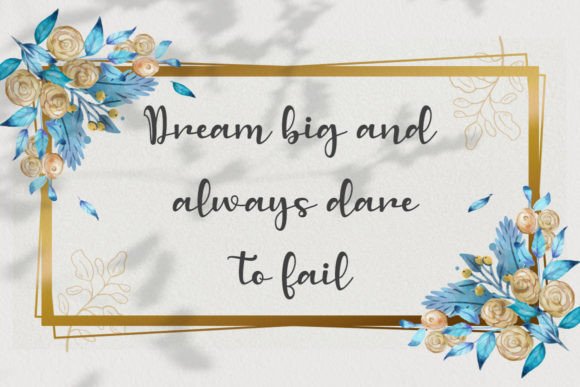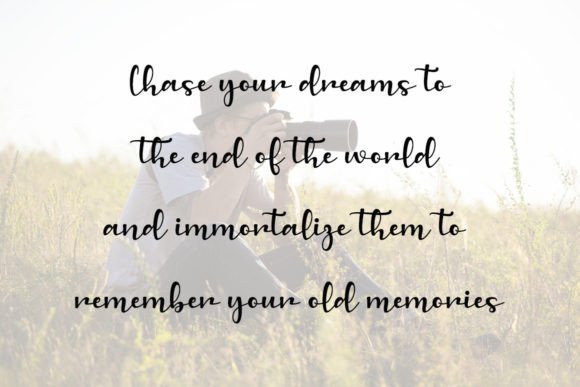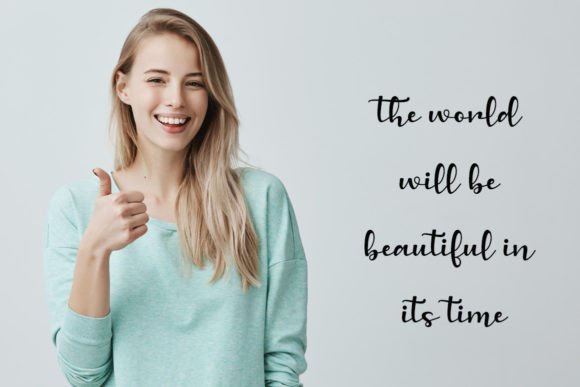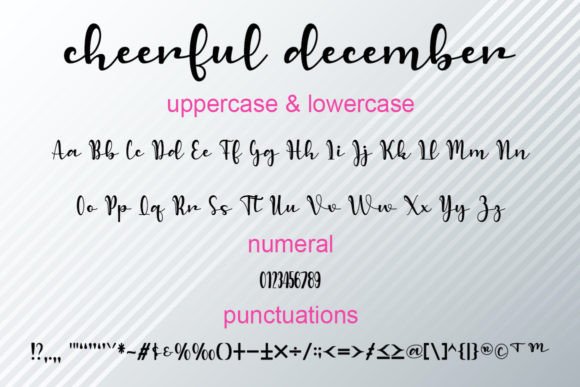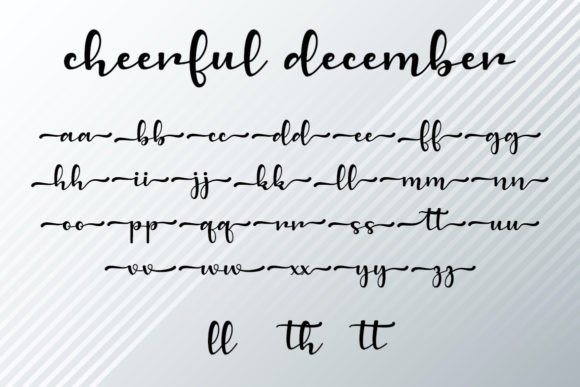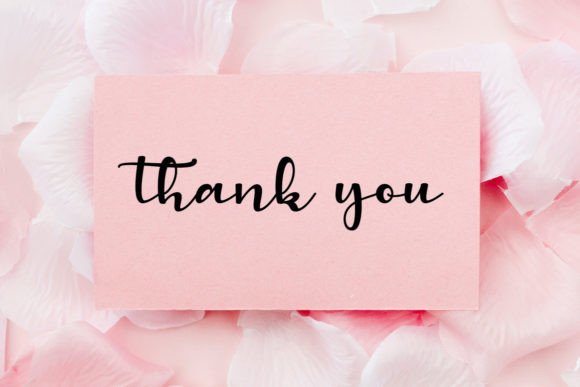
Unlock the Magic of the Season with Cheerful December Font
There’s something special about designing for the holiday season. The twinkling lights, the cozy atmosphere, and the joy that fills the air – it’s the perfect time to get creative and make something truly special. As designers, we’re always on the lookout for the perfect font to capture the essence of the season, and that’s where Cheerful December Font comes in.
This enchanting script font is the perfect addition to any project, whether it’s a logo, branding, quote, or even a simple business card. With its effortless charm and whimsical feel, Cheerful December Font is sure to bring a smile to your customers’ faces. And with its PUA encoding, you can access all the glyphs and ligatures with ease, making it a valuable tool for designers looking to elevate their projects.
- Unique Characteristics: The Cheerful December Font features a unique blend of modern and traditional elements, with intricate details and ornaments, perfect for adding a touch of elegance to your designs.
Designer Review: Cheerful December Font
I recently had the chance to work with the Cheerful December Font, and I must say it’s a mixed bag. Let’s dive in and see what works and what doesn’t.
- The font is incredibly cheerful, just as its name suggests. It’s perfect for holiday-themed projects, and it’s sure to put a smile on your users’ faces.
- The font is highly legible, even at smaller font sizes. This is a must-have for any font, and Cheerful December delivers.
- The font has a unique, hand-drawn feel that sets it apart from more generic sans-serif fonts.
- The font is a bit too ornate for some projects. If you’re looking for a font that’s clean and minimalist, Cheerful December may not be the best choice.
- The font’s size can be a bit unpredictable, especially at larger sizes. This may require some extra tweaking to get it looking just right.
Overall, I’d say Cheerful December is a great choice for holiday-themed projects, but it may not be the best fit for every project. With a bit of tweaking and creativity, it can be a real showstopper.
The Cheerful December font is perfect for creating festive and holiday-themed designs.
Use it for:
– Holiday cards and invitations
– Print materials like flyers and brochures
– Webpage headers and titles
Alternatives to Cheerful December Font
The Great Vibes Font is a fun, energetic script font that is perfect for creating a lively atmosphere. It is ideal for use in social media graphics, advertisements, and promotional materials where a playful tone is desired. Compared to Cheerful December Font, Great Vibes Font has a more casual and carefree feel, making it suitable for a younger audience.
The Alex Brush Font is a elegant, handwritten font that conveys a sense of sophistication and luxury. It is suitable for use in high-end branding, invitations, and wedding materials where a touch of elegance is desired. Compared to Cheerful December Font, Alex Brush Font has a more refined and mature feel, making it suitable for a more upscale audience.